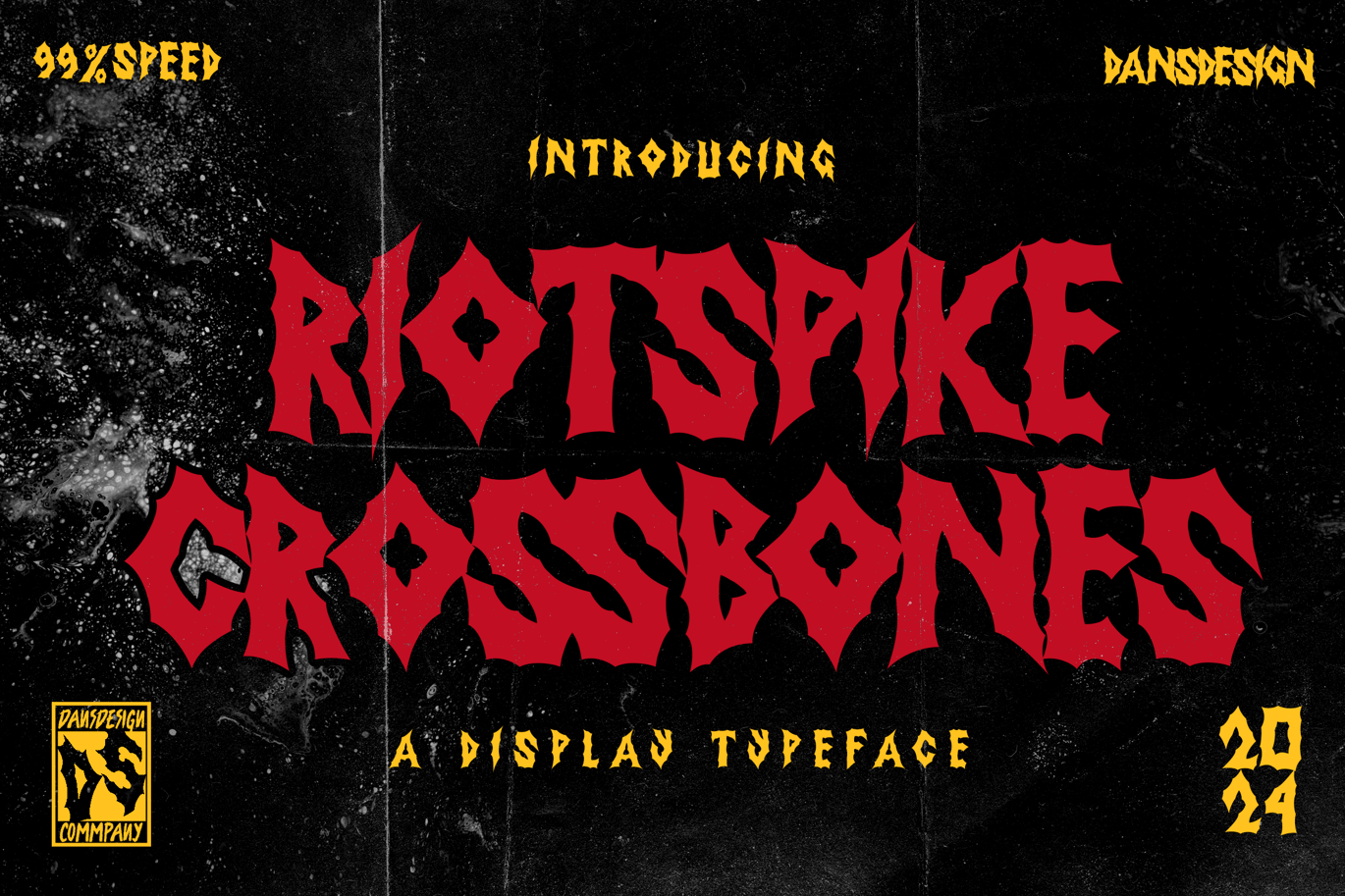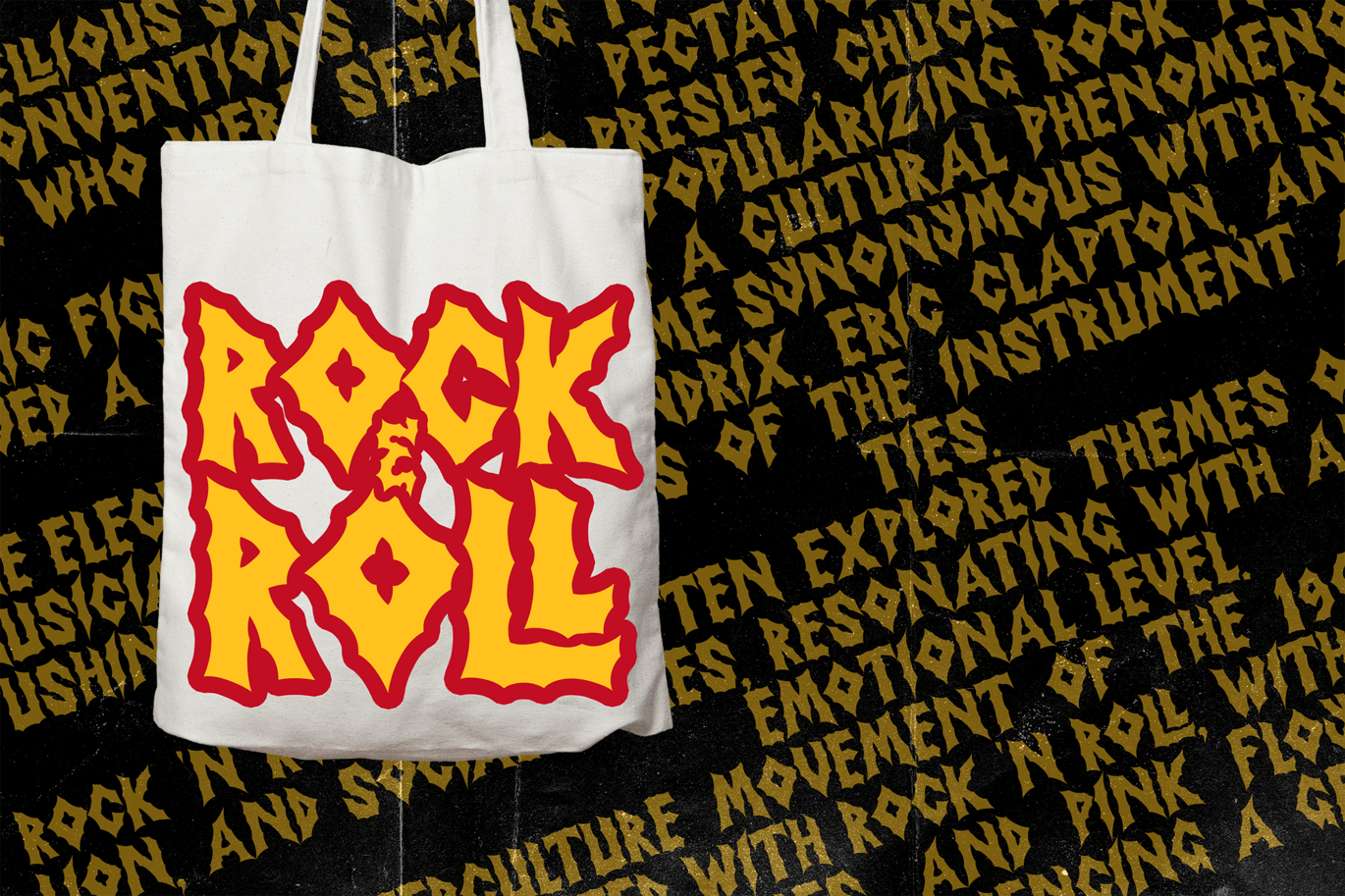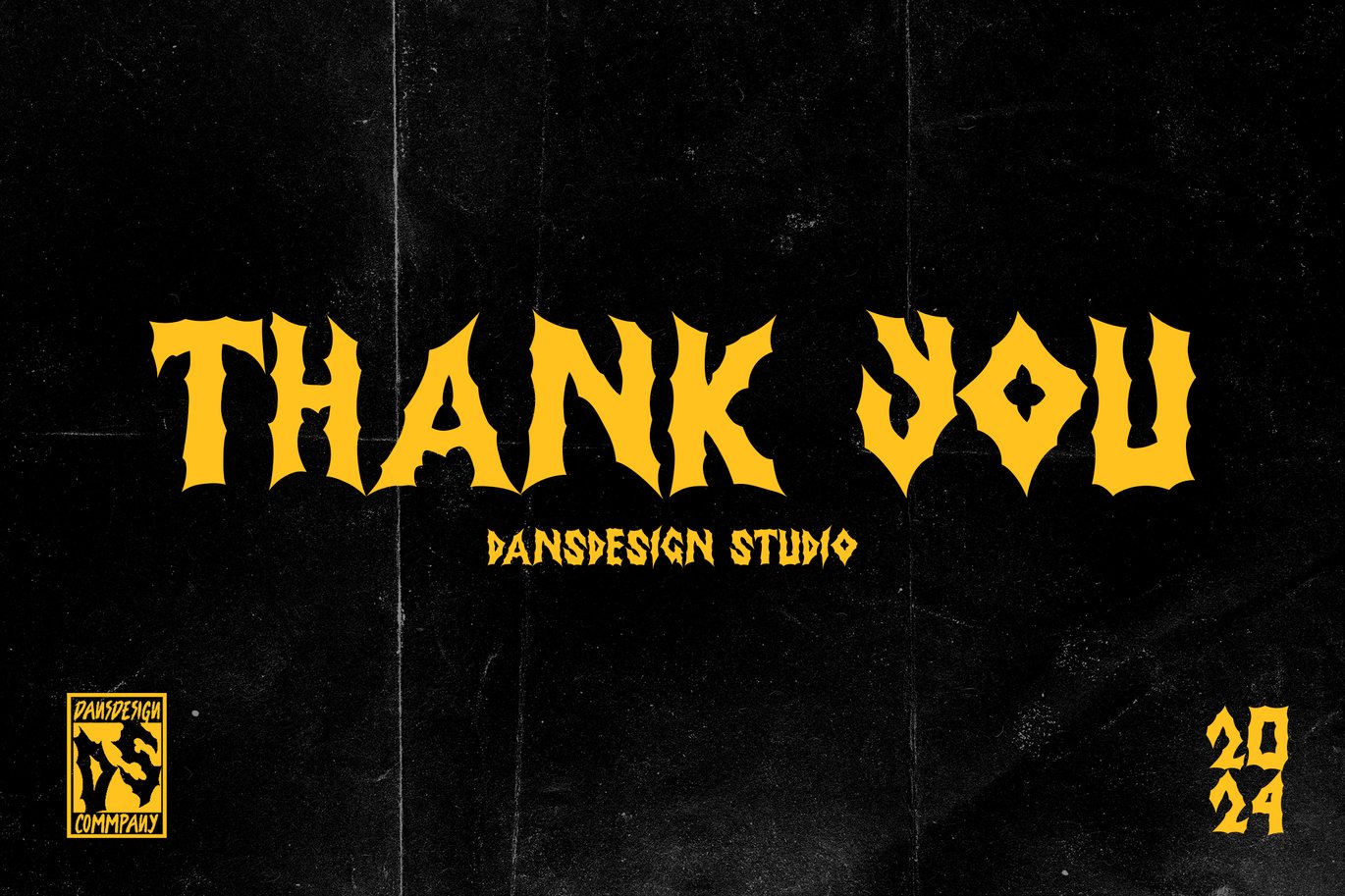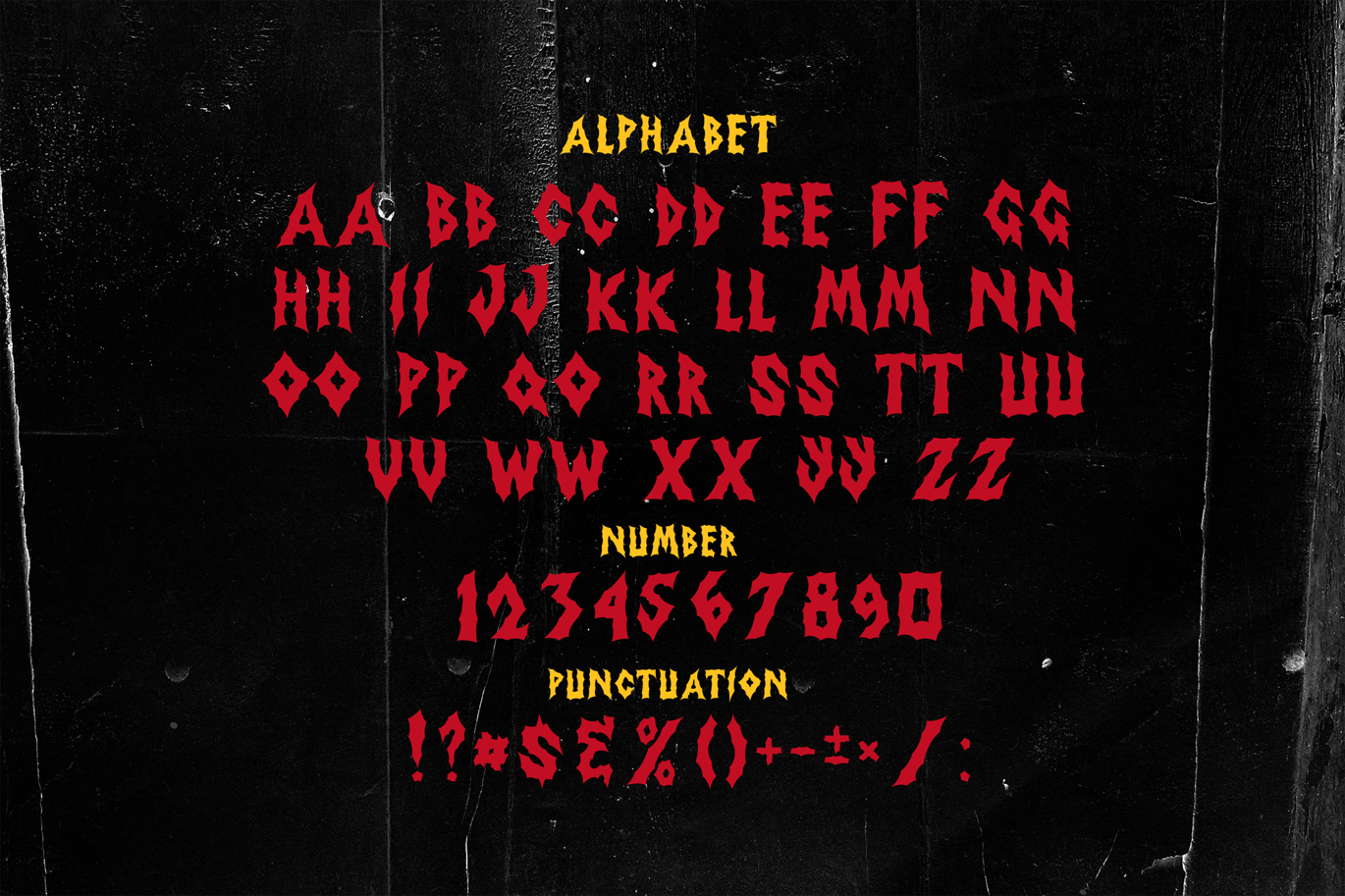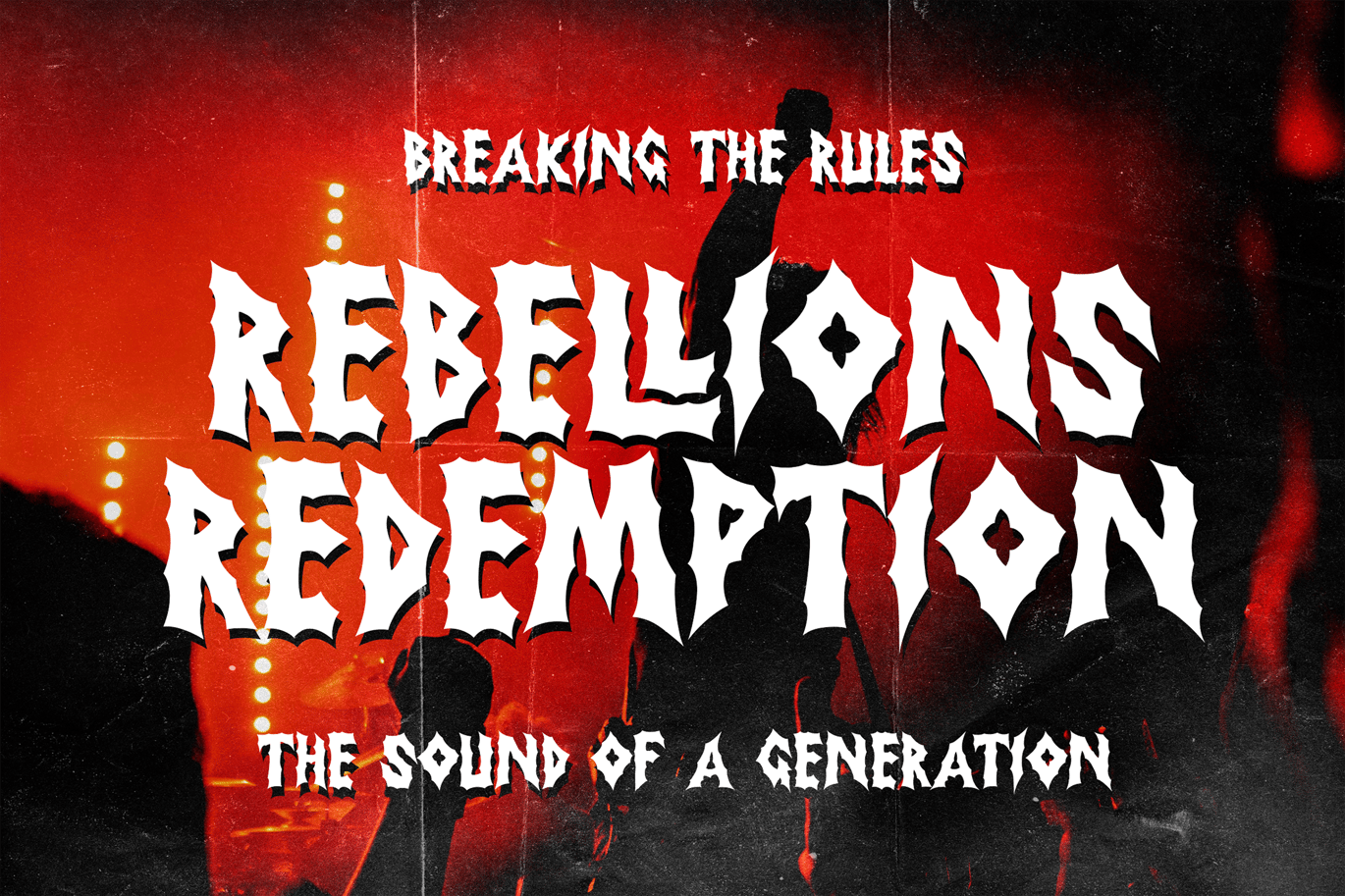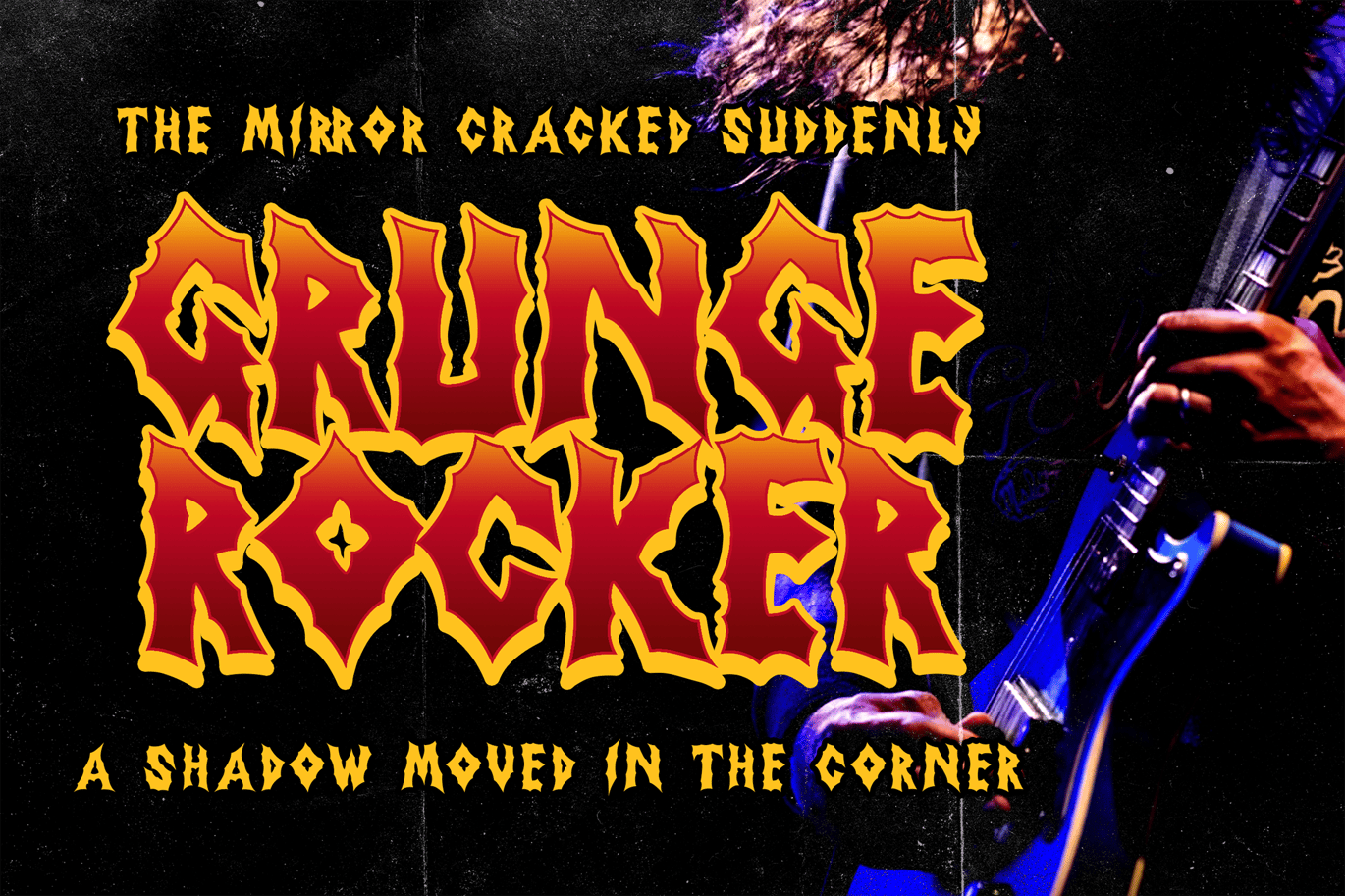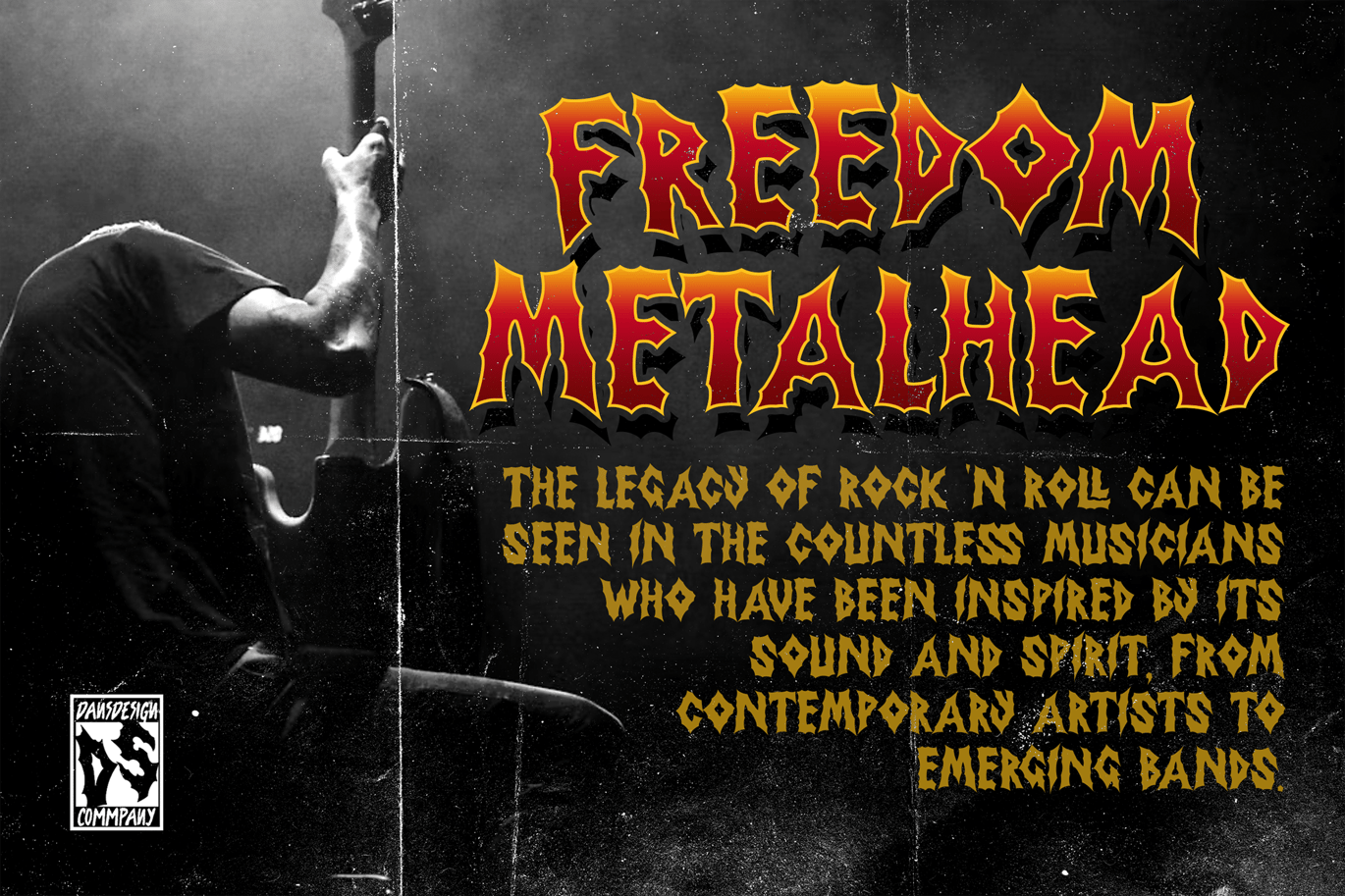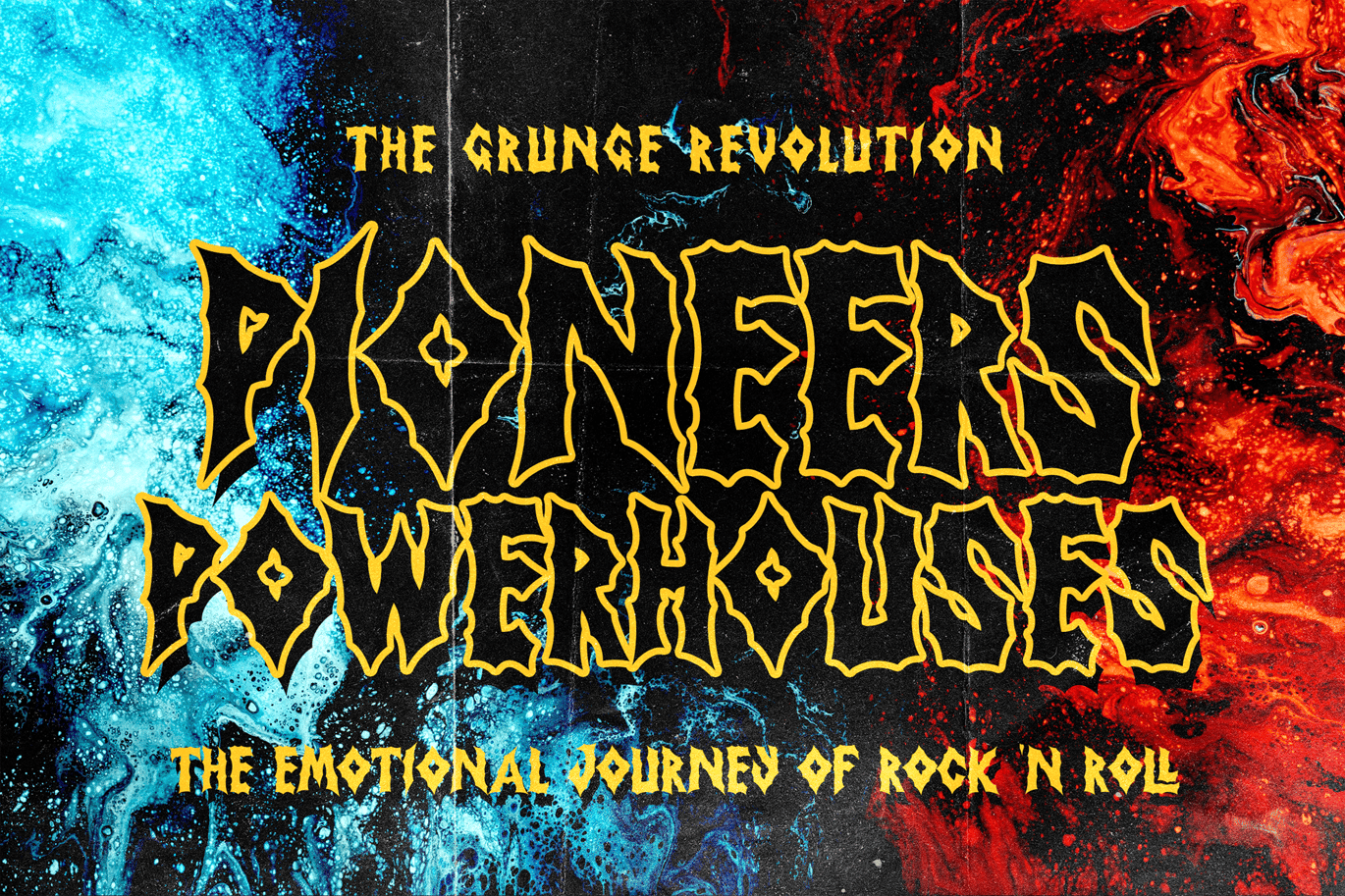
Riotspike Crossbones StreetArt Y2k Graffiti Font
It would make a great choice for exquisite retro-urban designs, business branding, logos, Apparel designs, and more.